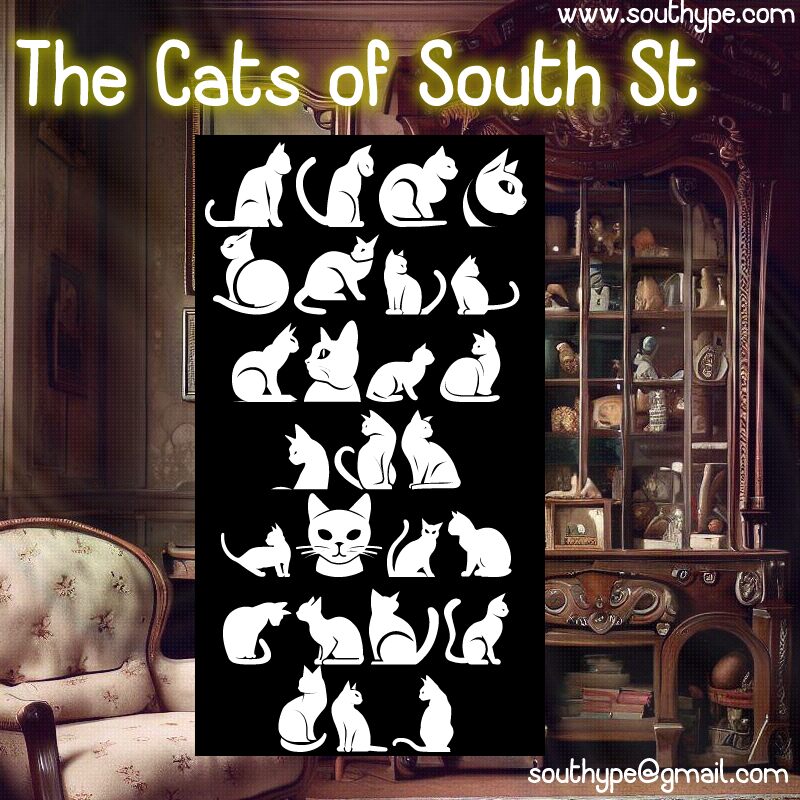
The Cats of South St is a free font combination of inviting, casual, and approachable attributes put together by the talents at Southype. The choice of its name is fun, making it clear that this hand-drawn typeface style containing whimsical vibes was inspired by nostalgic and artistic influences. When viewed, the tone of the writing appears calming and comfortable rather than energetic or scary.
Make sure to add The Cats of South St to heading text sizes in print media such as on magazine and book covers. Create titles for brochures and flyers as they promote events oriented toward cats. These may be things like bake sales, garage sales, adoption fairs, food drives, and more.